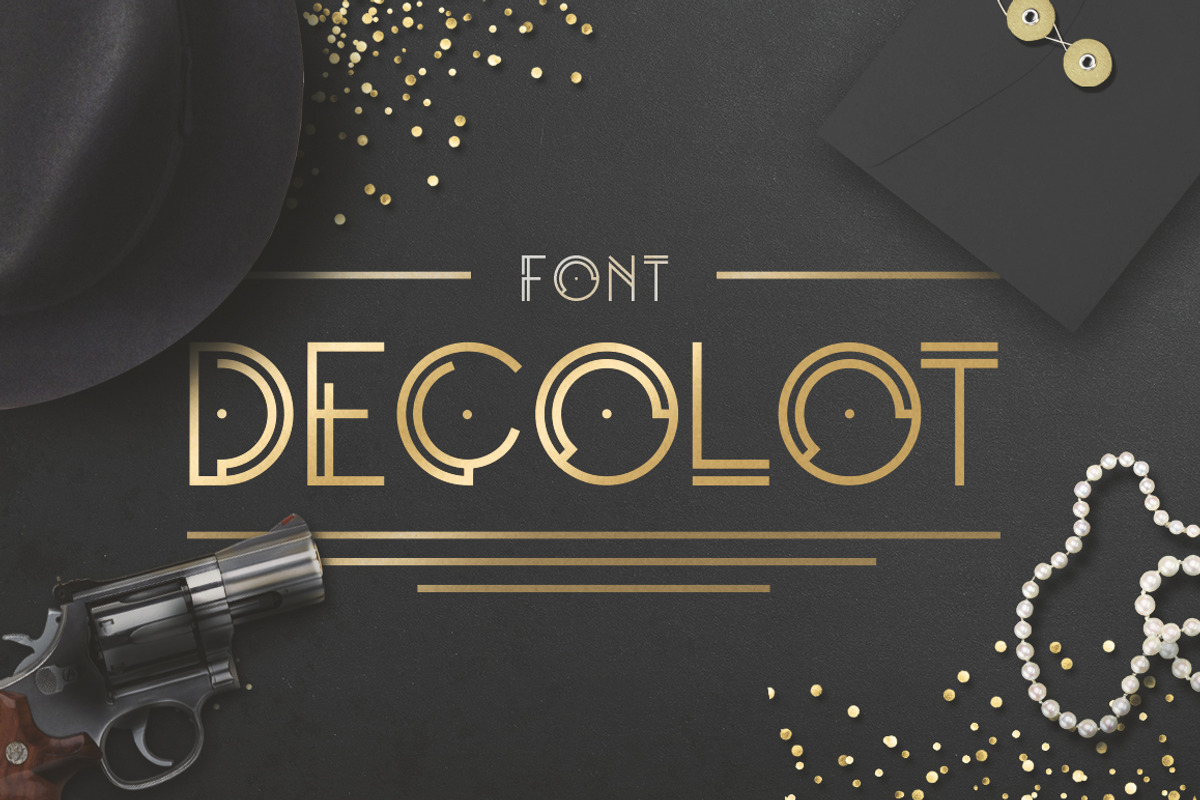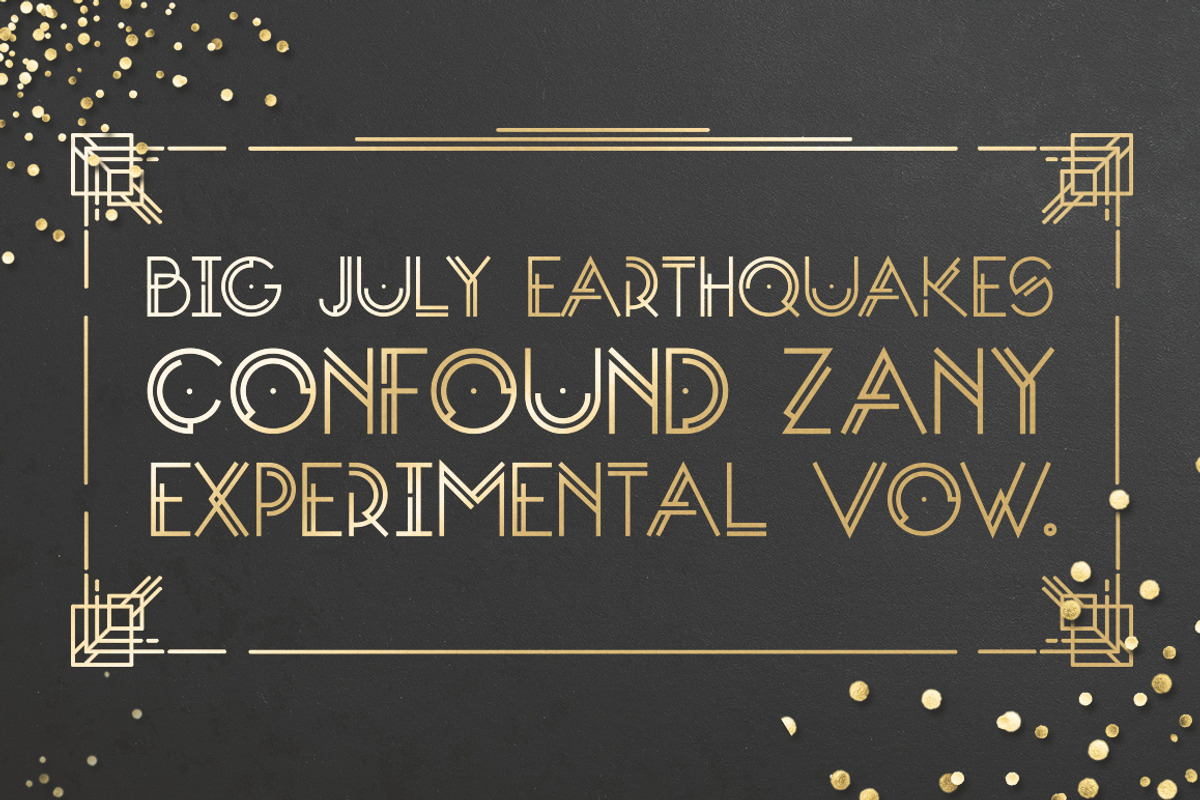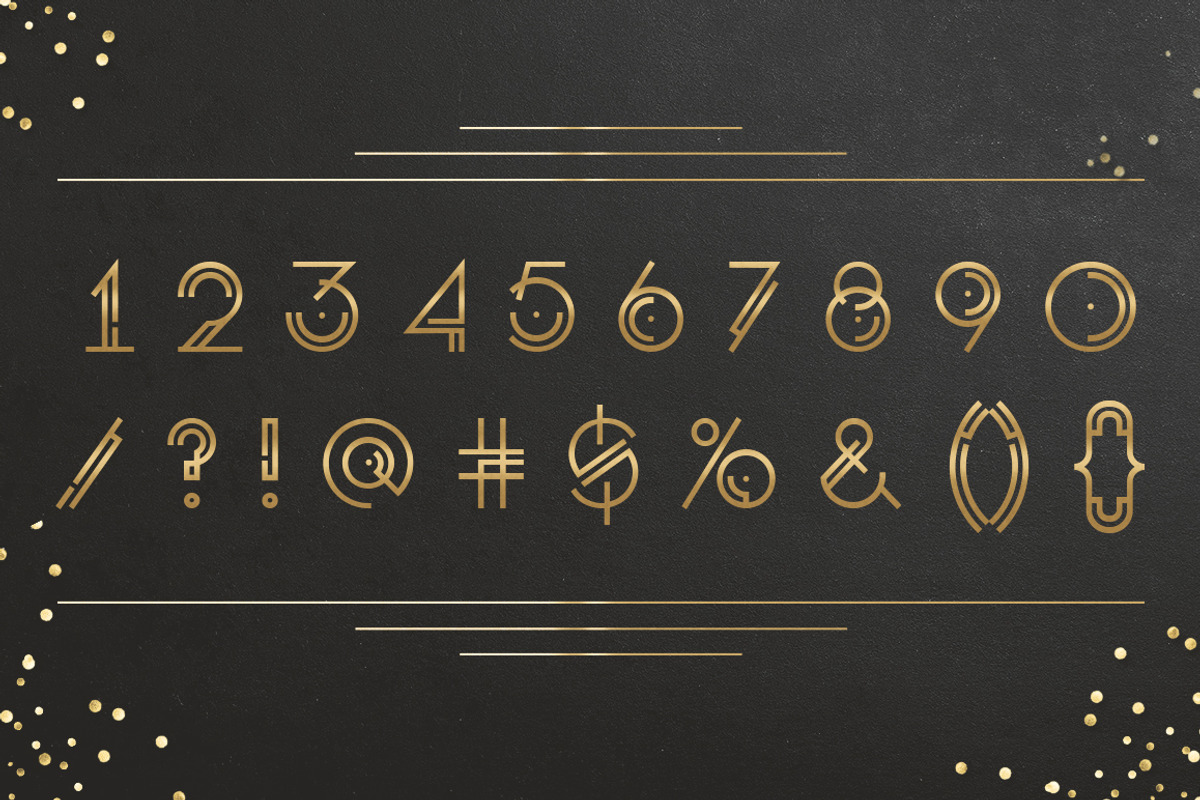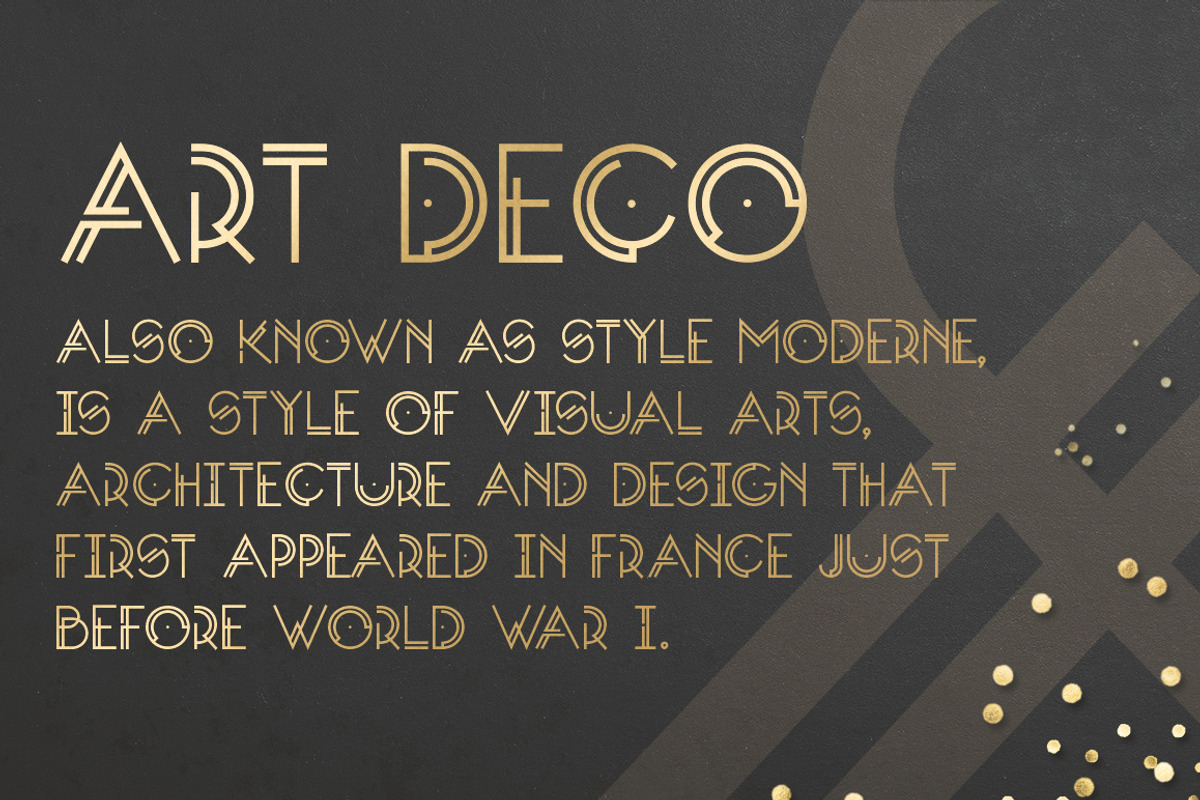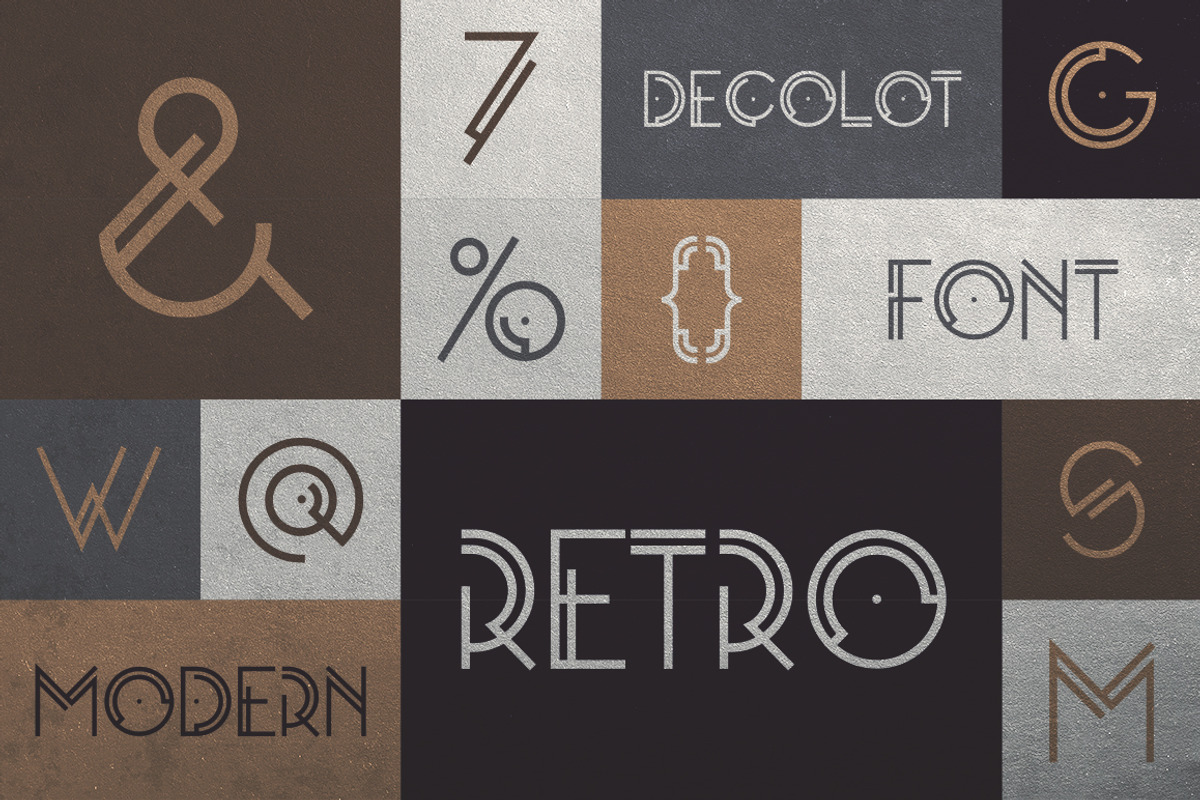
Decolot Font
Decolot font was created being impressed by the art deco era. It is built on simple geometric forms. The font is ideal for websites, posters design, invitations, headlines, cards, scrapbooking, gift wrap, packaging and more.